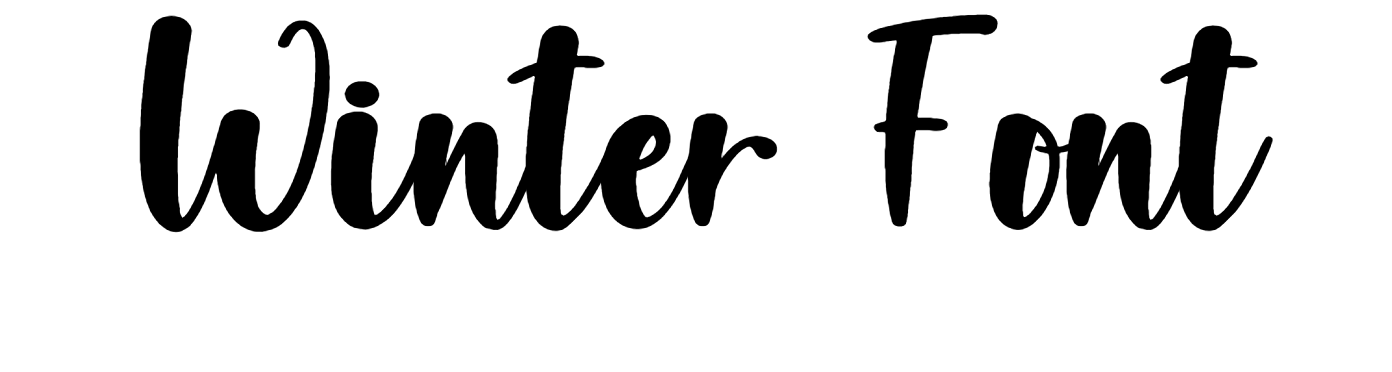
Winter
Winter is a script font. Its flowing, pen-made letters give names and short phrases a personal, polished look. It's a free download, and you can try it with your own text in the preview above first.
Winter covers the full alphabet in upper and lowercase, plus all ten numbers, so you can set names, dates and prices without switching fonts. Everyday marks like &, !, ? and @ are there too. Thanks to its accented letters, it also works for Spanish, French, Portuguese and Italian, not just English.
Ligatures and Smart Letters in Winter
Where Winter Works Best
Winter is a natural fit for wedding invitations, logos and signature-style headings. The file has no kerning data, so in logos and big titles check pairs like AV, To and Wa and tighten the spacing by hand. Script fonts read best in short bursts, so keep it to names, titles and one-line quotes. Skip all caps: script capitals are drawn to start a word, not to fill one.
Does Winter have ligatures?
Yes. Winter has ligatures that turn on by themselves in most design apps and browsers, so you don't need to do anything special.
Does Winter support accented letters?
Yes. Winter includes the accented letters needed for Spanish, French, Portuguese and Italian, so it works for more than just English.